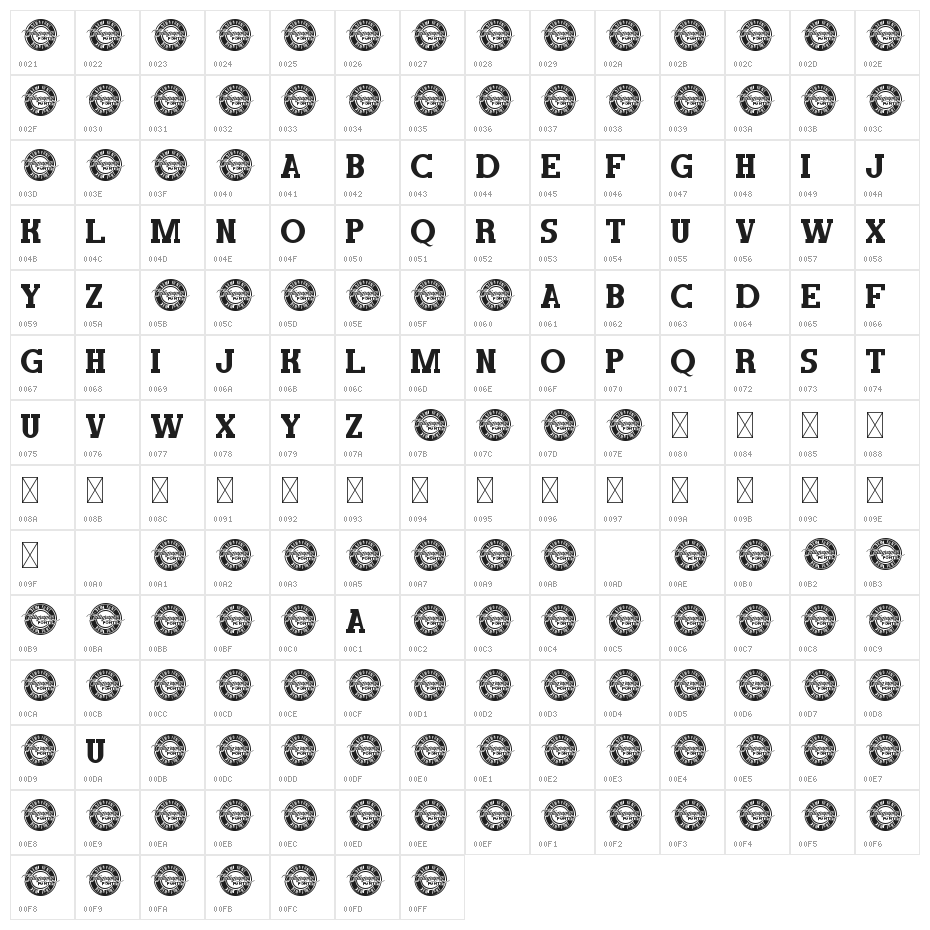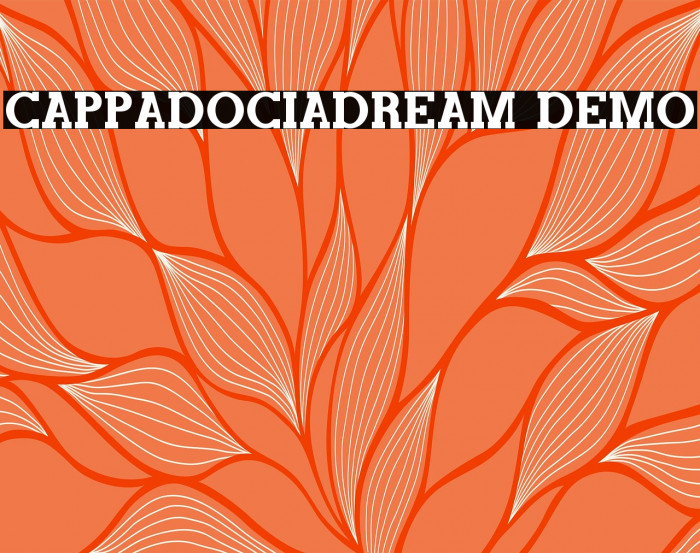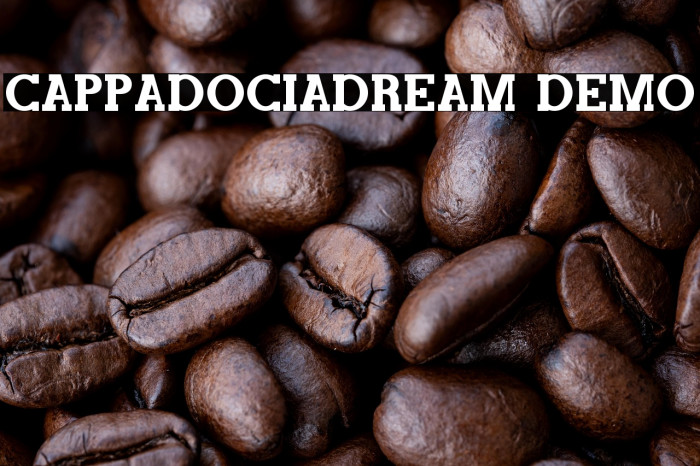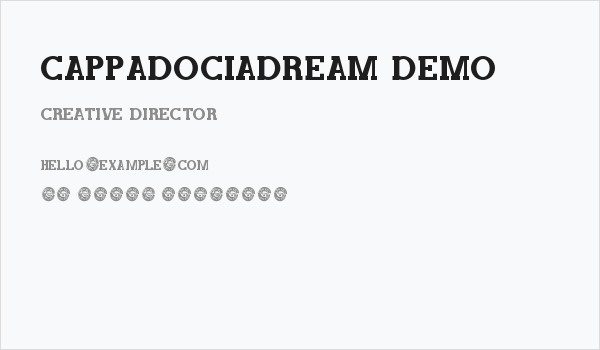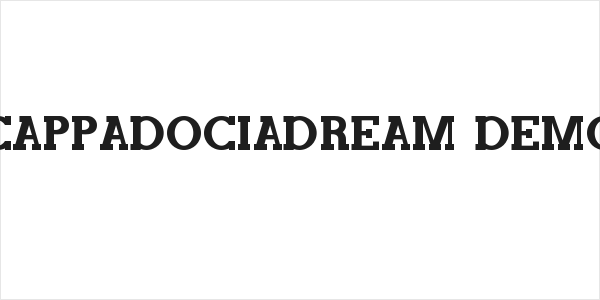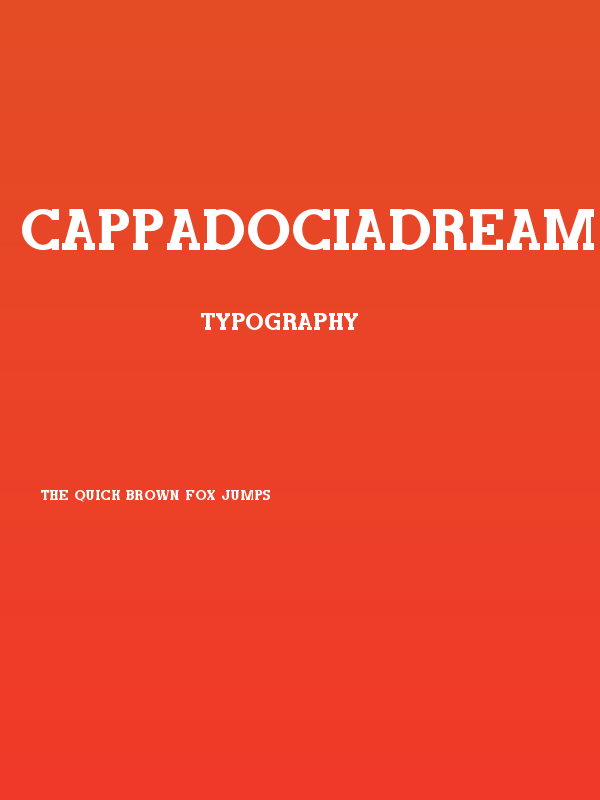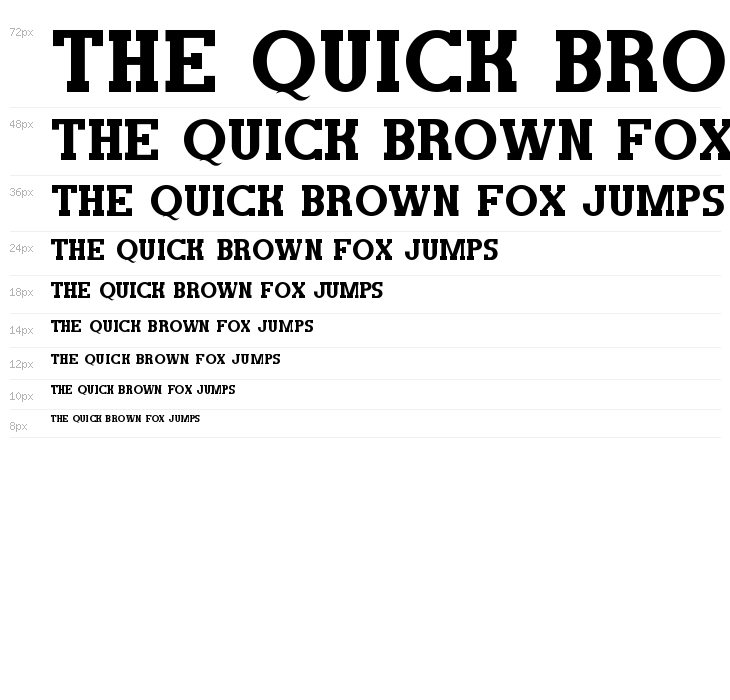
CappadociaDream Demo Font
CappadociaDream Demo Description
This font features bold, strong characters with a classic serif style. The letters are well-defined with thick strokes and prominent serifs, giving it a traditional yet impactful appearance. The uppercase letters are particularly striking, with a sense of authority and elegance. The font maintains a consistent weight throughout, ensuring readability and a cohesive look. The spacing between characters is normal, allowing for clear legibility while maintaining a compact and organized appearance. This font is ideal for projects that require a formal and professional touch, such as headlines, logos, and branding materials.
| Proposed Projects | Ideal for headlines, logos, branding, and formal invitations. |